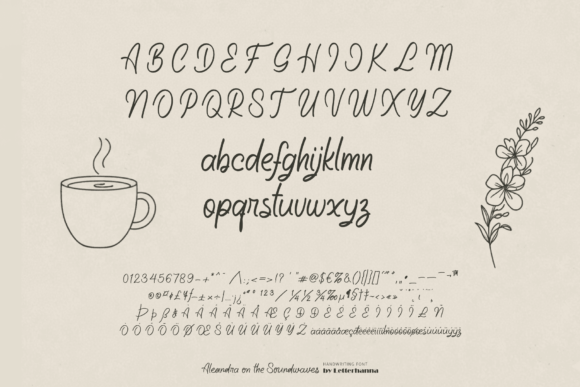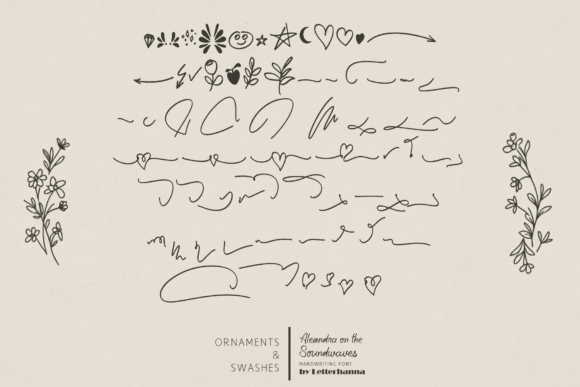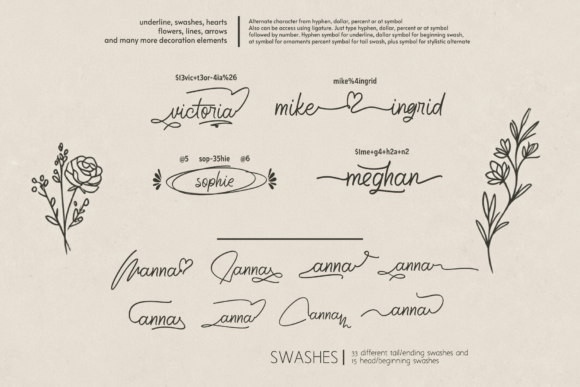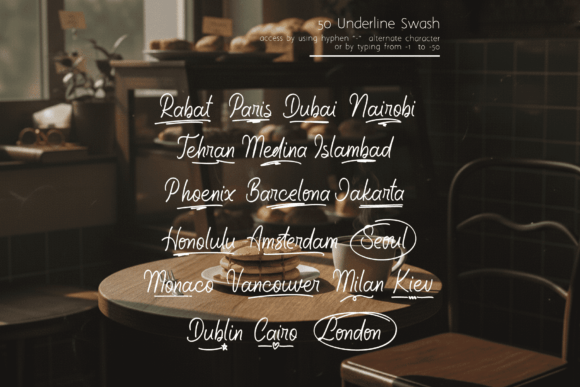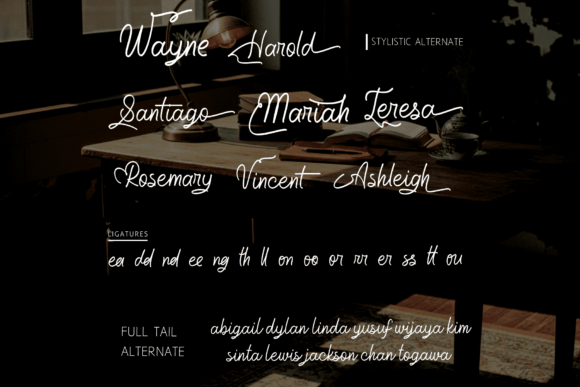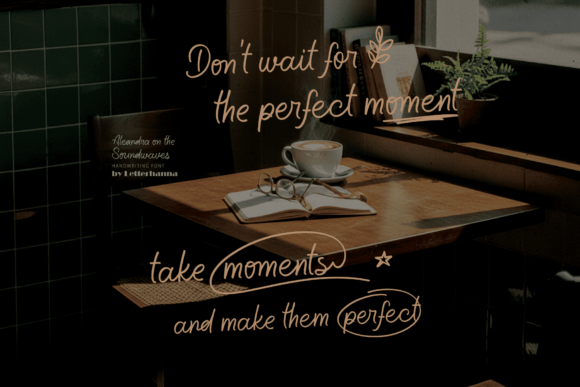
Where Creativity Meets Harmony
We’ve all been there – staring at a blank canvas, searching for that spark that ignites our imagination. For some, it’s the sound of a guitar riff or the hum of a city at night that sets the creative juices flowing. It was in one such late-night session that an illustrator discovered the mesmerizing beauty of soundwave patterns, and a new font was born.
Aleandra on the Soundwaves Font is more than just a handwriting font – it’s a bridge between the audio and visual worlds. With its artistic swash extensions, flexible stylistic alternates, and striking underline swash accents, it’s the perfect tool for designers looking to add a touch of harmony to their work. Whether you’re creating band branding, event posters, packaging, or content, this font is sure to bring a dynamic energy to your projects.
So why settle for ordinary lettering when you can create dynamic compositions with Aleandra on the Soundwaves Font? Bring a little harmony into your work today and discover a whole new world of creative possibilities.
- Unique Characteristics: Hand-drawn design with a mix of modern and vintage elements, featuring a unique soundwave-inspired pattern
- Font Style: Script, Handwritten
A Designer’s Take on Aleandra on the Soundwaves Font
As a designer, I was excited to dive into the Aleandra on the Soundwaves font. Here’s my honest review.
- The unique blend of modern and vintage elements creates a truly captivating look.
- The font is incredibly legible, even at smaller sizes, making it perfect for body text.
- The subtle wave-like features add a touch of elegance and sophistication.
- The font may be a bit too ornate for certain designs, such as those requiring a more minimalist approach.
- The wave-like features can sometimes make the text appear choppy or uneven.
- The font may not be suitable for text that requires a high level of precision, such as technical writing or coding.
Overall, I think Aleandra on the Soundwaves is a beautiful and versatile font that can add a unique touch to various designs. However, it may not be the best choice for every project. With some careful consideration of its limitations, I believe it can be a valuable addition to any designer’s toolkit.
Some tips for getting the most out of Aleandra on the Soundwaves Font include:
1. Use the font for creative projects, such as music posters or album artwork.
2. Experiment with different font sizes and styles to create a unique look.
3. Combine the font with other design elements, such as images and graphics, to create a visually appealing design.
Q: Are there any specific design considerations for using Aleandra on the Soundwaves?
Aleandra on the Soundwaves features a unique, hand-drawn aesthetic that is optimized for use with digital screens. To achieve the best results, we recommend using a high-resolution display and a design application that supports advanced typography features, such as ligatures and contextual alternates.